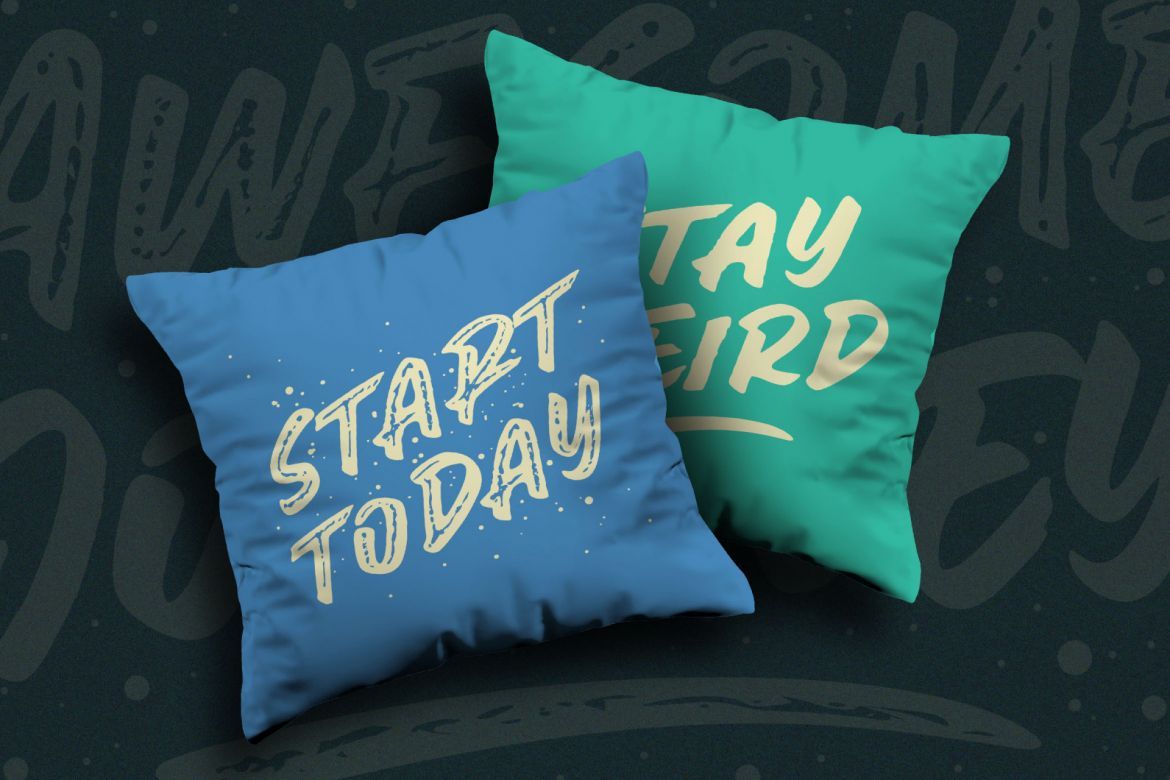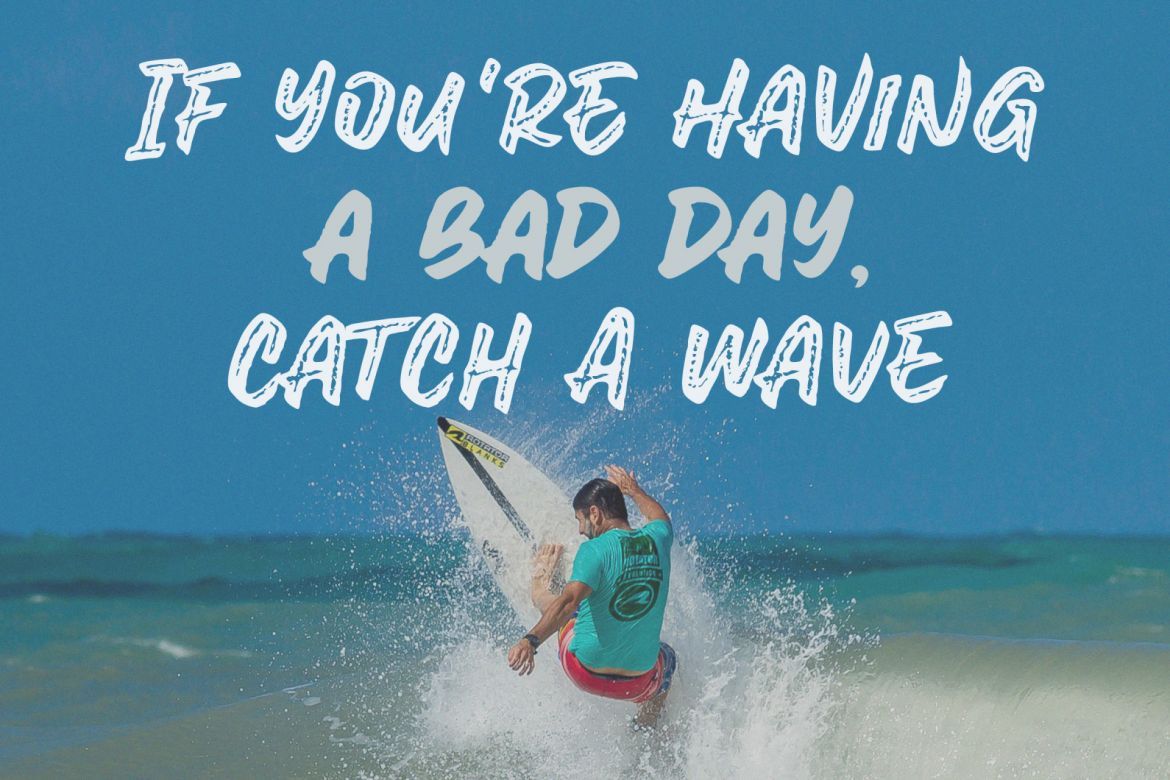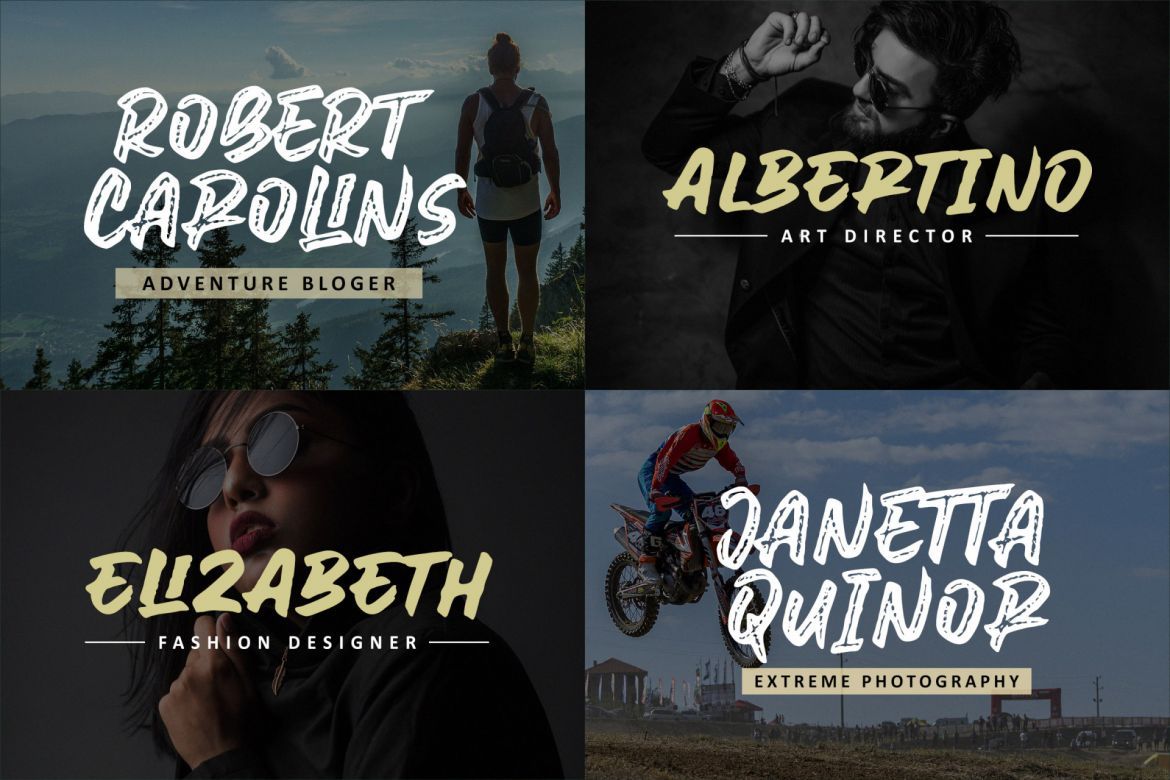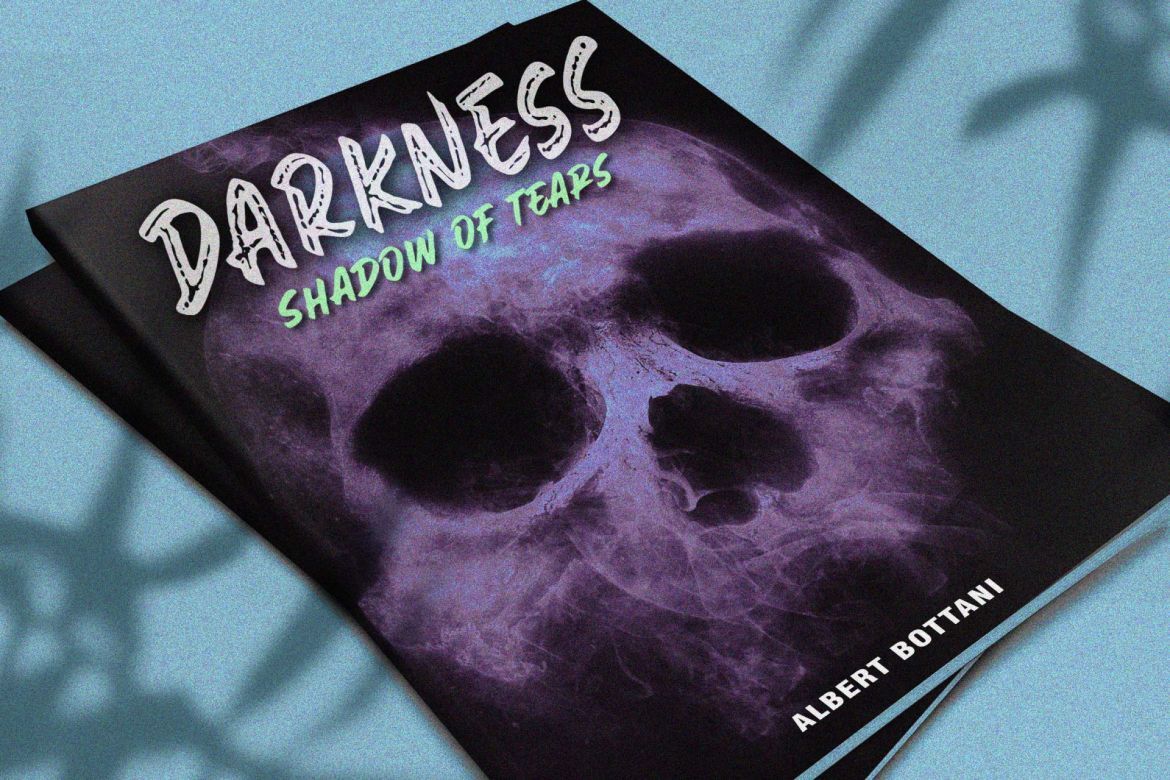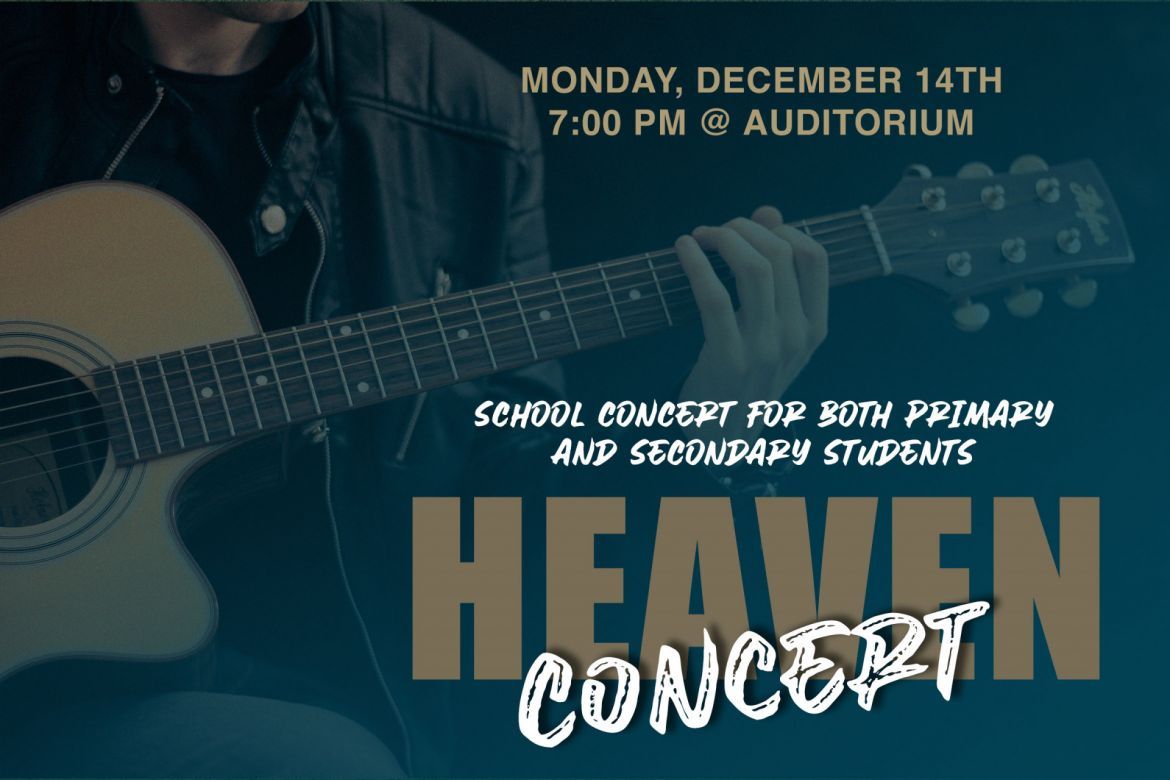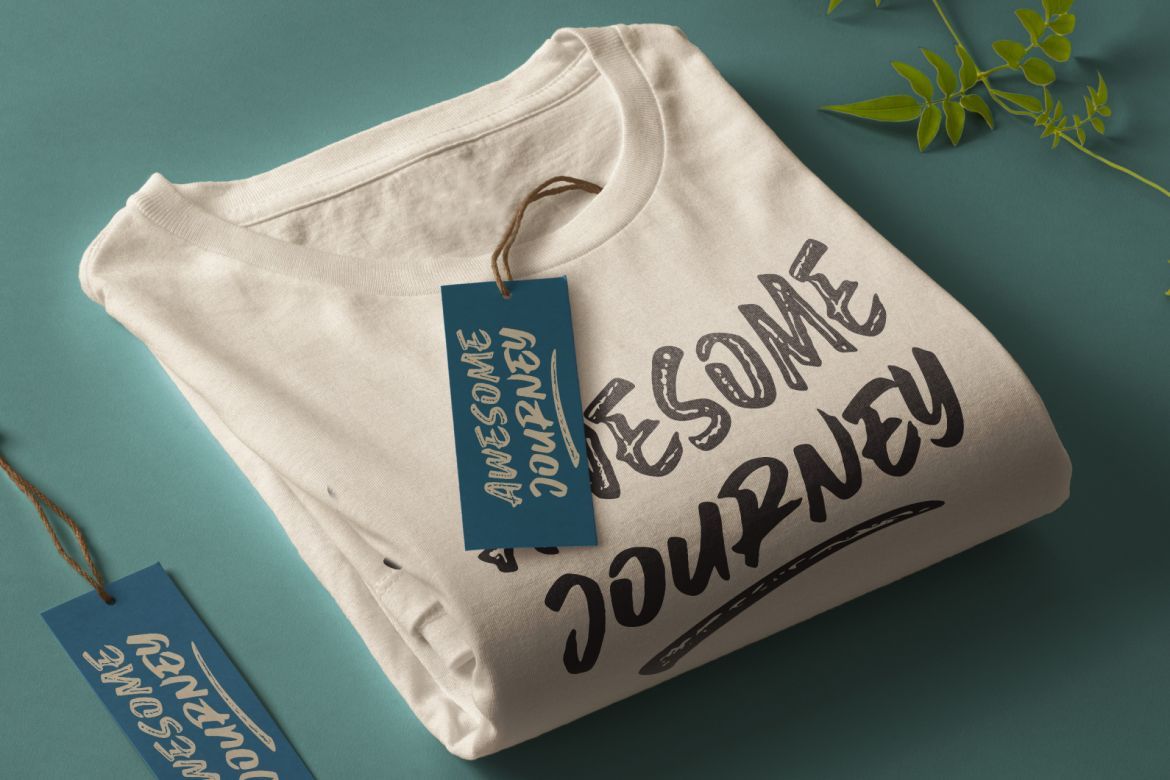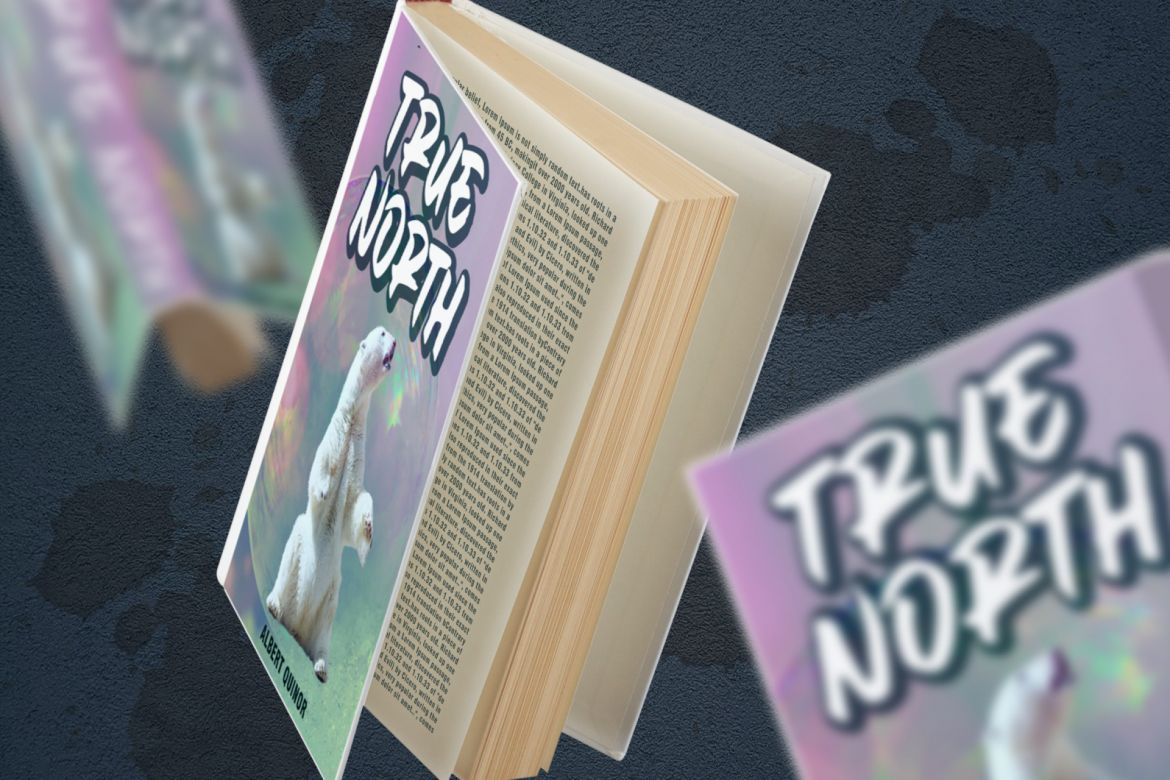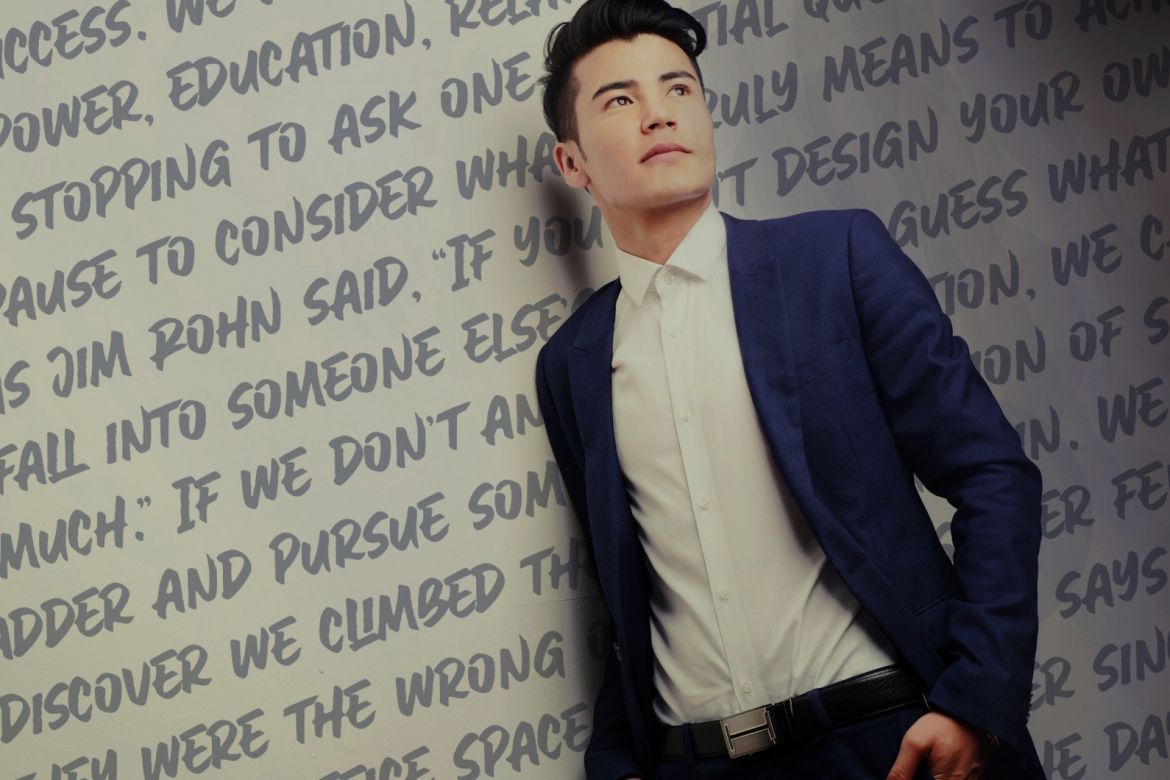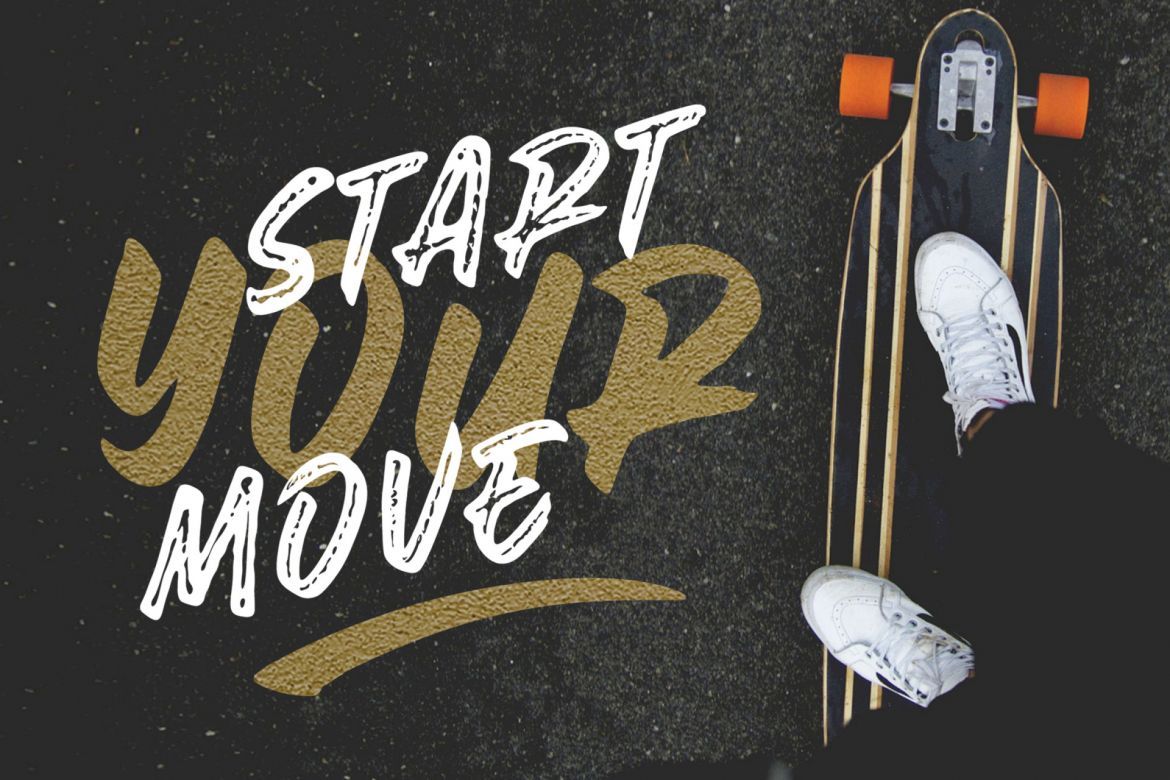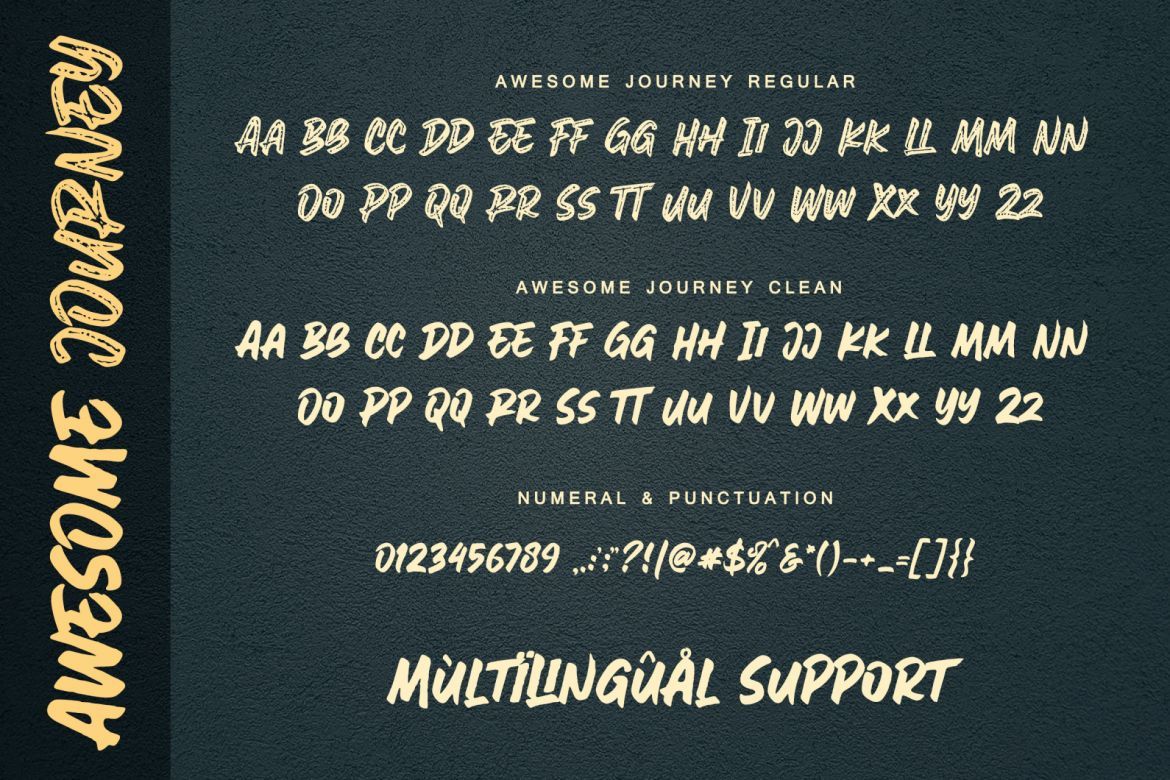
Awesome Journey brush font
"Awesome Journey" is a two styles brush font, street-wise brush font bursting with energy. With extra attention to quick strokes and sharp details. this font came with two style, Regular and clean version.
This font is perfect for challenging jobs, titles, t-shirts, websites, hoodies, and various print and digital media with energy. Awesome Journey is ideal for logos, apparel, quotes, product packaging, or anything which needs a typographic turbo-boost.
• two styles brush font